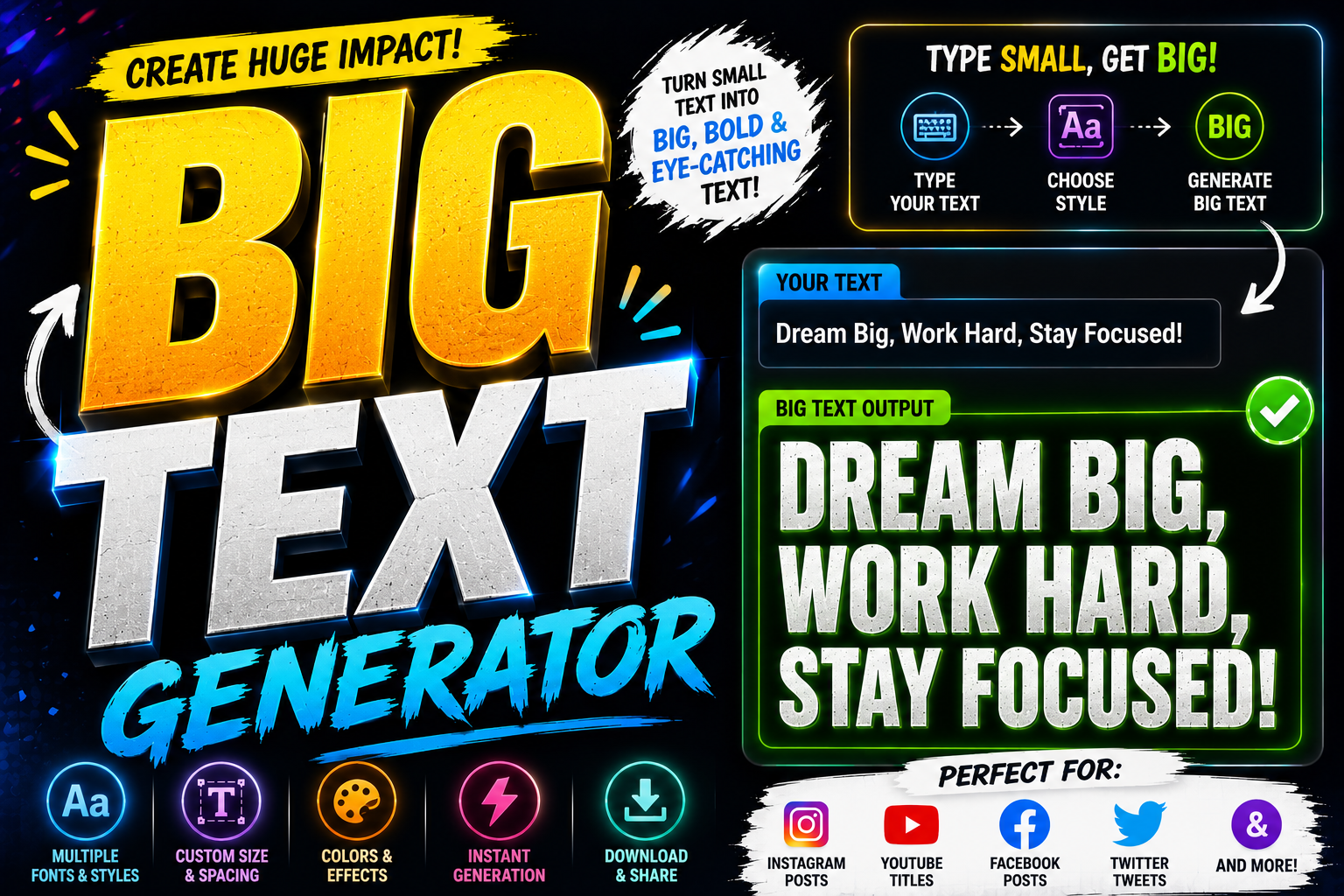
Big Text Generator & Stylizer
Overlooking formatting limits your platform impact instantly. Achieving a visual dominant presence requires exploiting the standard Unicode specification directly inside the browser. This tactical disruption alters how any digital device renders your modern online profile.
We bypass traditional software constraints entirely. Deploying an online tool transforms normal text into raw attention, rendering striking glitch text variations that capture user focus before they even read a single written contextual phrase successfully.
My consulting experience proves that generic captions fail. Integrating distinct cursive elements within professional bios brings unmatched elegance. I advise strategic disruption; a bold layout fixes visibility issues across modern crowded digital communication ecosystems effortlessly.
When managing community spaces, gamers demand tactical differentiation. Implementing a glitchy or Gothic aesthetic for custom nicknames subverts expectations. Through subtle manipulation, even tiny typography alterations completely reshape digital identities and overall user engagement metrics.
Audience retention drops when grid styling feels generic. Through my years optimizing Instagram profiles, using customized typography across Reels commands instant attention. This stylistic choice alters user psychology, granting your digital personality an unparalleled edge.
Standard algorithms suppress boring layouts, so modern creators must innovate. Crafting tactical feeds requires disrupting scrolling patterns directly. I find that applying unique Unicode glyphs within short captions establishes a powerful, fresh trend across platforms.
Managing digital spaces requires tactical execution. When administrators personalize community hubs, ordinary interaction shifts. I often inject altered text within Discord channels to break conversational monotony, reshaping daily communication into a highly captivating social experience.
Standing out amidst chaotic servers means rethinking text layout. Standard formatting limitations vanish once unique symbols alter your chat messages. My experience proves that striking glyphs redefine gamer tags, allowing users to completely warp reality.
Crafting feed text requires deep disruption. From my experience, regular scrolling patterns completely ignore basic phrasing. When updating profile captions on Twitter, custom formatting stops skimming behaviors, forcing passive followers to pause and actually read.
Leaving generic feedback buries your voice beneath thousands of uninspired networks. Deploying stylized lettering inside chaotic replies or noisy comments establishes authority across modern social media ecosystems, turning overlooked interactions into effective brand recognition triggers.
Cultivating a distinct digital footprint requires bypassing standard limitations. When optimizing a profile text or creating headlines for an algorithmic timeline, relying on a fancy text generator provides instant aesthetic separation to stand out effectively.
Injecting raw personality directly into standard posts shifts how audiences perceive feed information. Using custom fonts inside native comments or an informational bio breaks monotonous interfaces, ensuring your strategic updates instantly command deep, undivided attention.
TikTok Fonts
Modern creators often misunderstand sensory overload. Capturing viewer attention requires radical subversion of platform defaults. Elevating individual creativity through stylized text mechanics allows experimental Memes to thrive. These shifts rewire algorithmic discovery inside TikTok completely.
Static layouts suppress human identity across immersive networks. Altering your visible username establishes an unconventional psychological boundary. Optimization practitioners bypass default interfaces, embedding specific aesthetic styles directly into the profile bio to trigger instant recognition.
Minecraft & Gaming Fonts
Identity mapping across global digital networks dictates survival. My customized gaming legacy relies heavily on optimizing viral usernames on platforms like Reddit. Cultivating this raw aesthetic completely transforms basic text profiles across vast Steam libraries.
Emblazoning blocks with aggressive metal structures requires subversive underground expressions. I often deploy raw graffiti stylings or intricate custom script fonts to override boring local Wi-Fi names, asserting absolute dominance inside competitive custom sandbox environments.
Microsoft Word
Standardizing document structures often fails because standard formatting feels completely lifeless. My design workflow completely changed when I bypassed normal settings, utilizing this specific tool to generate distinct headlines that instantly anchor corporate Word files.
Do Big Text Work On All Social Media Platforms?
Navigating various social platforms requires caution because specific apps might struggle to display complex Unicode text characters properly. While creative fonts look cool, old devices sometimes fail to render those rare styles quite effectively today.